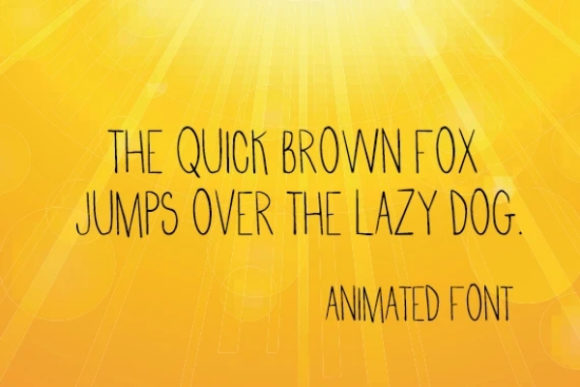
Introducing Animated Font: The Ultimate Sans Serif for Modern Designs
Are you a designer or crafter looking for a font that can elevate your visual projects? Look no further than Animated Font, a simple and casual sans serif font that exudes a clean and modern feel. With its beautiful arrangement of letters, this typeface is perfect for both formal and non-formal designs.
What Makes Animated Font Stand Out?
Animated Font is designed to provide a neat and beautiful look to your designs. Its clean and simple sans serif style makes it highly versatile, allowing you to use it in a wide range of projects, from brochures and posters to digital media and websites. The font’s elegant and modern aesthetic ensures that your designs will look outstanding, whether you’re creating a formal or non-formal visual piece.
Key Features of Animated Font
- Clean and Simple Design: Animated Font boasts a clean and simple sans serif design that ensures your text is easy to read and understand.
- Neat Arrangement of Letters: The font features a beautiful arrangement of letters, making it perfect for designs that require a touch of elegance and sophistication.
- Versatility: Animated Font is highly versatile and can be used in both formal and non-formal designs, making it a great addition to your font library.
- Modern Aesthetic: The font’s modern aesthetic ensures that your designs will look contemporary and visually appealing.
Use Cases for Animated Font
Animated Font is perfect for a wide range of design projects, including:
- Branding and Identity: Use Animated Font to create a strong brand identity that exudes modernity and sophistication.
- Digital Media: The font is perfect for digital media, including social media graphics, videos, and website designs.
- Print Materials: Animated Font can be used to create stunning print materials, such as brochures, posters, and flyers.
- Crafting and DIY Projects: The font is also great for crafting and DIY projects, such as handmade cards, scrapbooking, and journaling.
Tips for Using Animated Font Effectively
To get the most out of Animated Font, here are some tips to keep in mind:
- Pair with Other Fonts: Experiment with pairing Animated Font with other fonts to create a unique and visually appealing design.
- Use Different Sizes and Colors: Use different sizes and colors of Animated Font to create visual hierarchy and add depth to your design.
- Experiment with Effects: Don’t be afraid to experiment with effects, such as shadows and gradients, to add texture and interest to your design.
Animated Font is a versatile and modern sans serif font that is perfect for designers and crafters looking to elevate their visual projects. With its clean and simple design, beautiful arrangement of letters, and modern aesthetic, this font is sure to become a staple in your font library. Whether you’re creating formal or non-formal designs, Animated Font is the perfect choice.